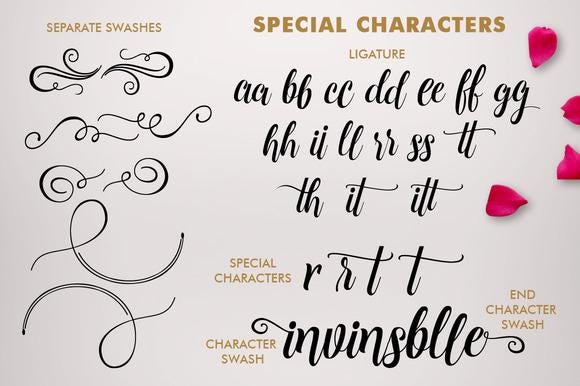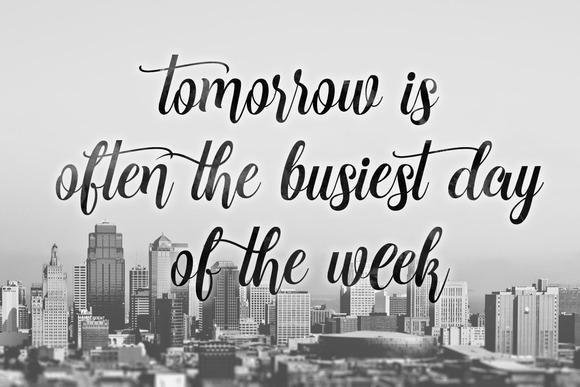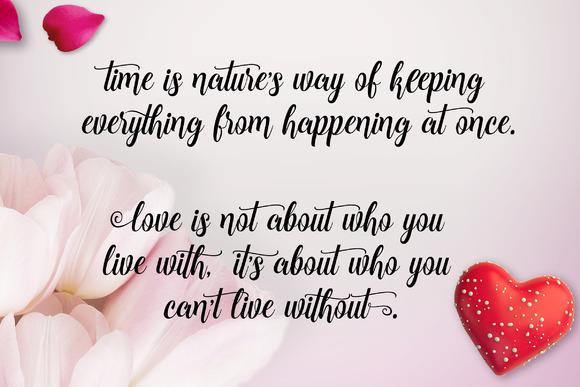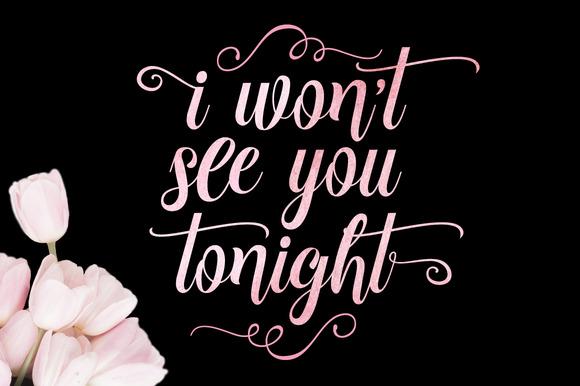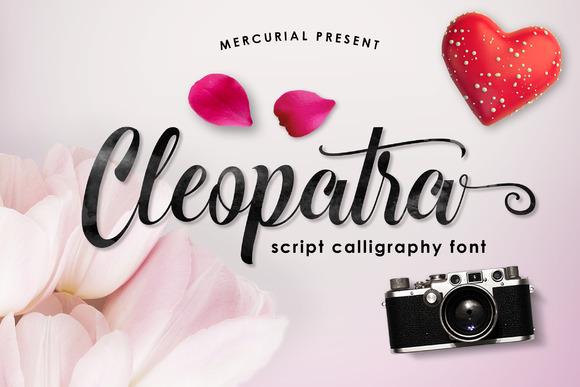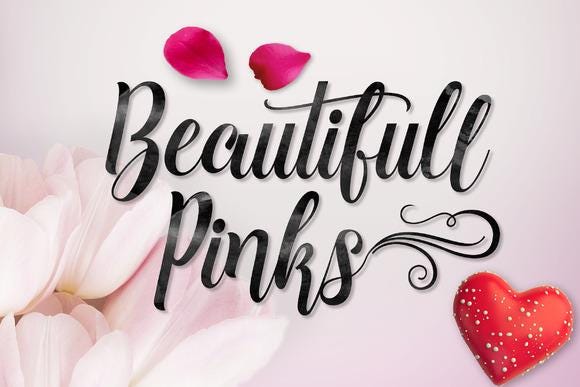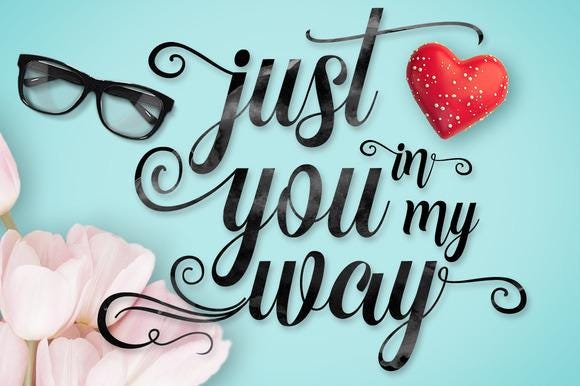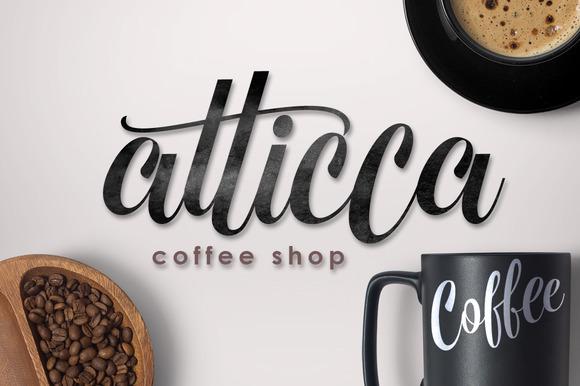
Cleopatra Font
Just as pharaoh Cleopatra, this stunning font is a true beauty. The letters in this font are very smooth and elegant. The font is made in a true modern calligraphy style that would work well on many types of projects. Add this lovely freebie to your creations and take your designs to the next level!